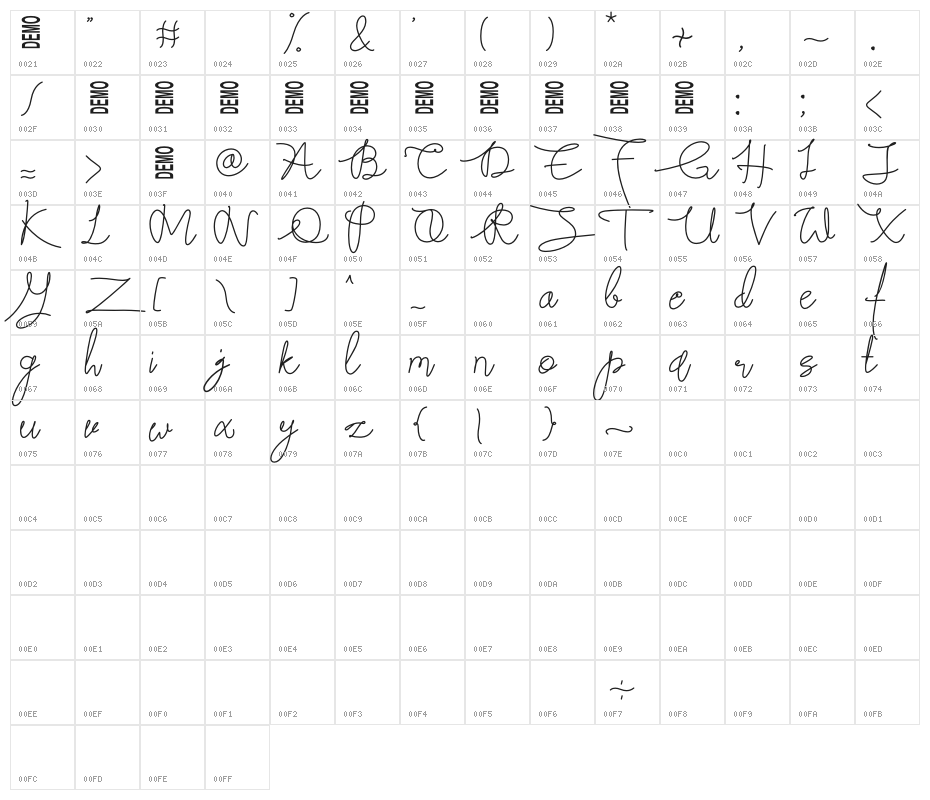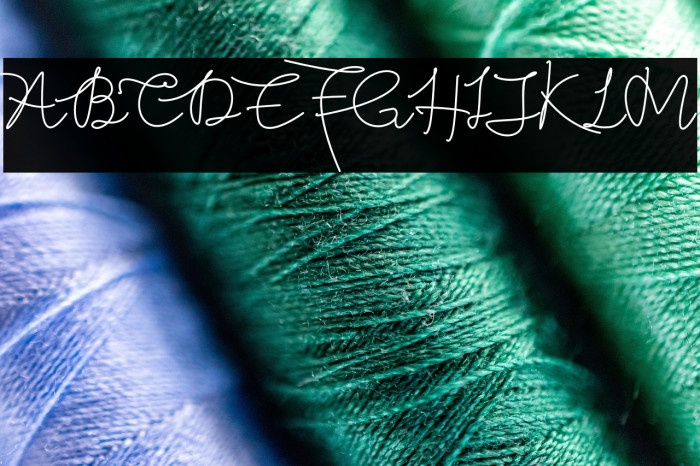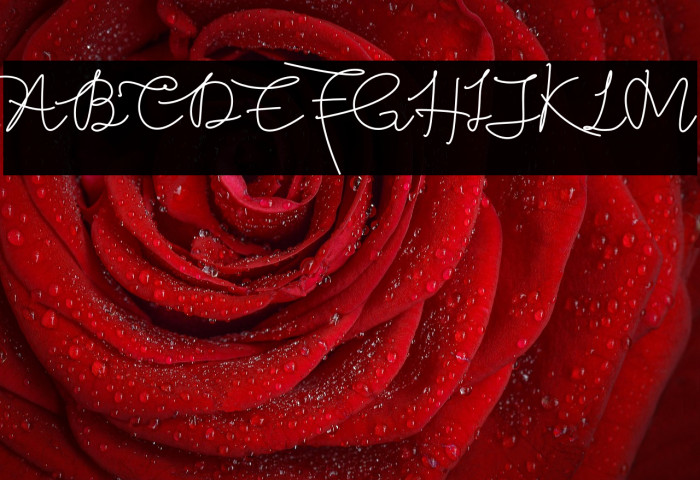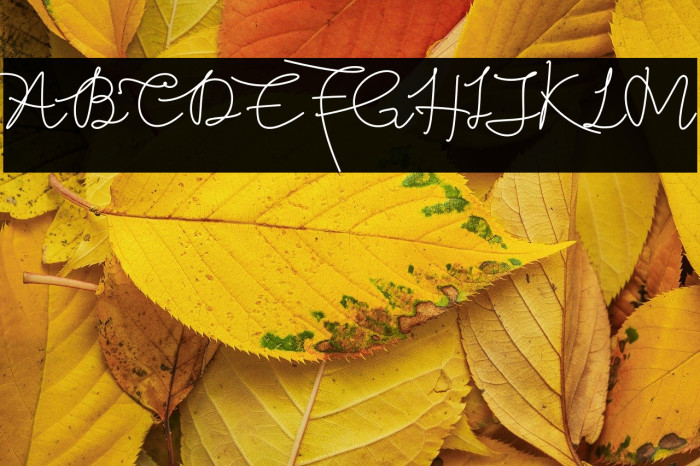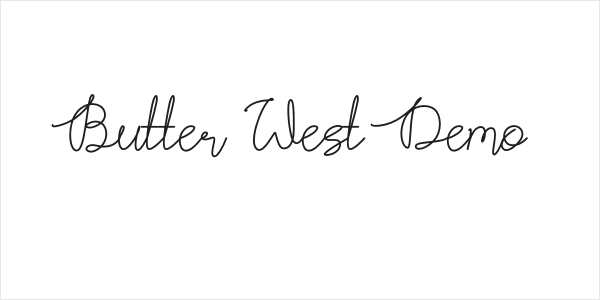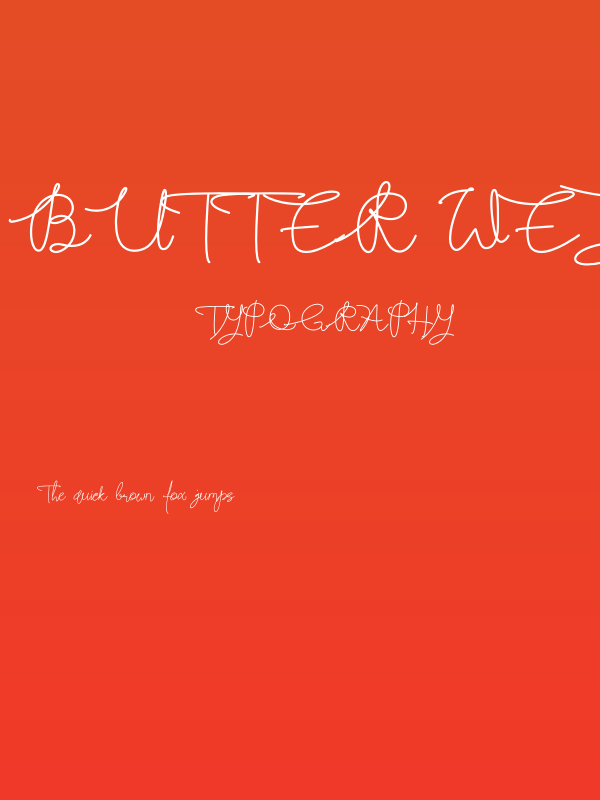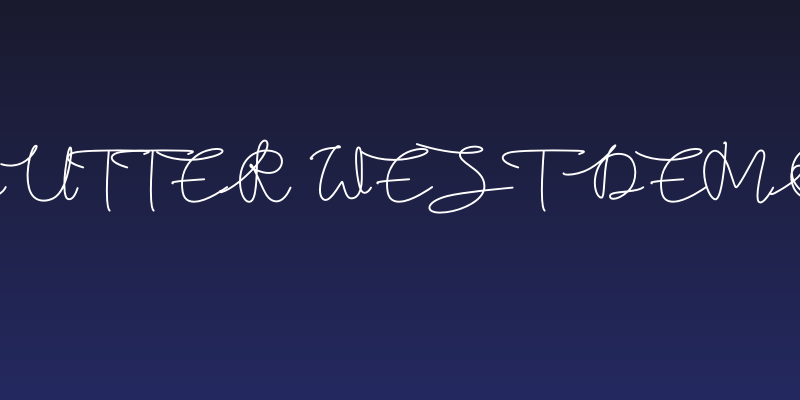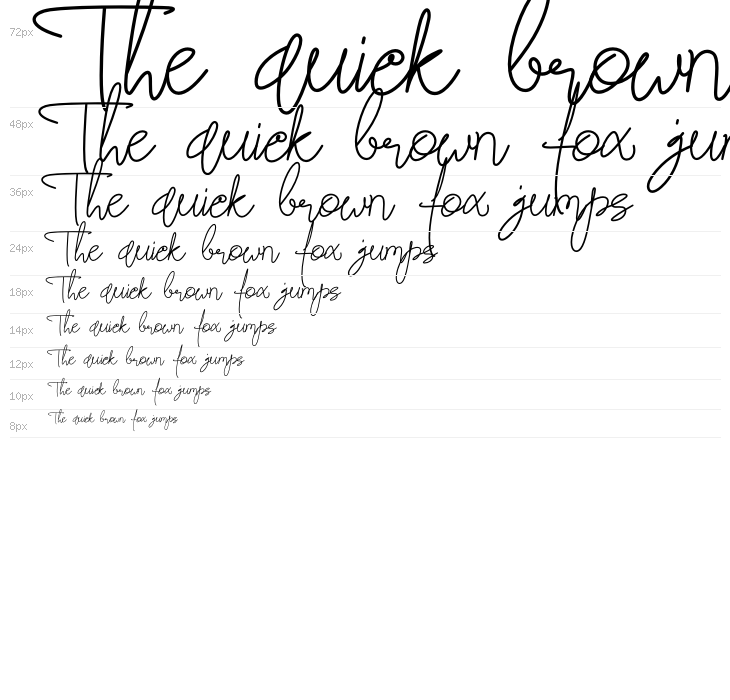
Butter West Demo Font
Butter West Demo Description
This font features a dynamic and expressive handwritten style, characterized by fluid and interconnected strokes that mimic natural handwriting. The uppercase letters are elegantly elongated, with a slight slant that adds a sense of motion and grace. The lowercase letters maintain a consistent flow, enhancing readability while preserving the artistic flair. The numerals and special characters are crafted with the same attention to detail, ensuring a cohesive look across all text. This font's unique style makes it suitable for creative projects that require a personal touch.
| Proposed Projects | Ideal for invitations, greeting cards, personal branding, and artistic projects. |